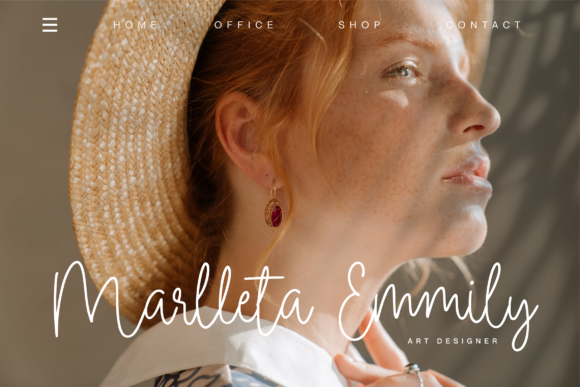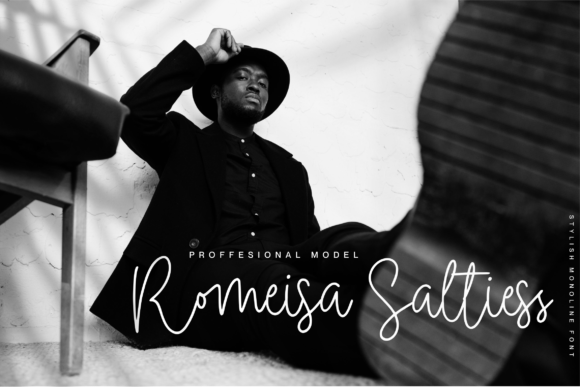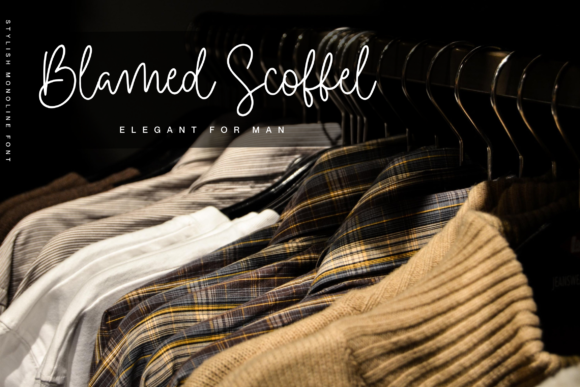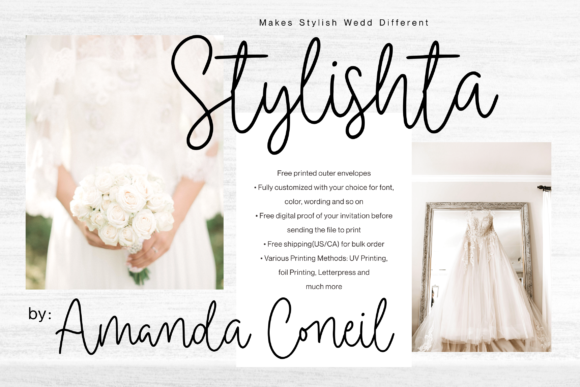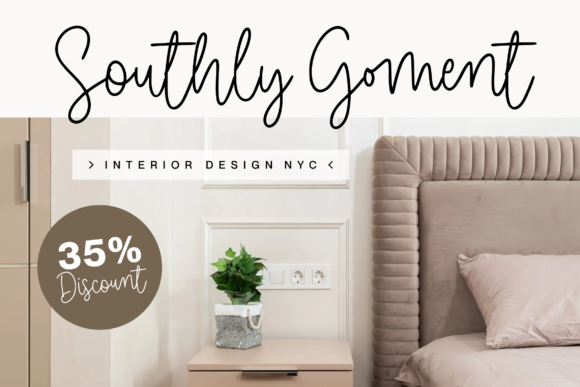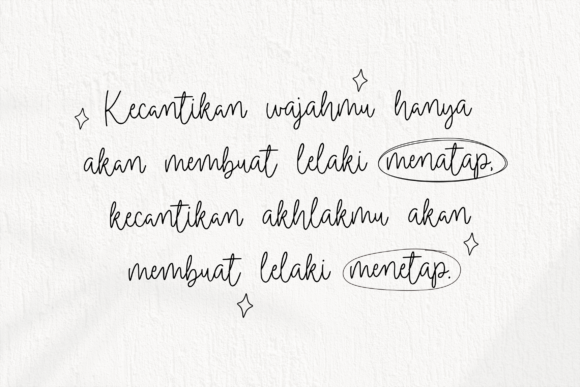
Introducing Clothingline Font: Elevate Your Designs with Authentic Style
Are you a designer or crafter looking for a font that adds a personal touch to your projects? Look no further than Clothingline Font, a stylish script font that exudes authenticity and sophistication. With its elegant and refined aesthetic, Clothingline is perfect for a wide range of applications, from letters and invitations to branding, birthday cards, thank you notes, wedding invitations, and more.
The Authentic Look and Feel of Clothingline Font
Clothingline Font is designed to mimic the look and feel of handwritten script, making it an excellent choice for designers and crafters who want to add a personal touch to their work. The font features beautiful, flowing connections between letters, creating a sense of continuity and harmony. Its authentic look and feel make it perfect for projects that require a touch of elegance and sophistication.
Versatility at Its Best: Use Clothingline Font for Various Projects
One of the best things about Clothingline Font is its versatility. Its stylish and refined aesthetic makes it suitable for a wide range of projects, including:
- Letters and Invitations: Use Clothingline Font to create beautiful, handwritten-style letters and invitations that will make a lasting impression on your recipients.
- Branding: Add a touch of elegance and sophistication to your brand with Clothingline Font. Use it for logos, business cards, and other marketing materials.
- Birthday Cards and Thank You Notes: Create personalized birthday cards and thank you notes that will make your loved ones feel special.
- Wedding Invitations: Make your wedding invitations truly unforgettable with Clothingline Font. Its elegant and refined aesthetic is perfect for formal wedding invitations.
Why Choose Clothingline Font?
So, why should you choose Clothingline Font for your next project? Here are just a few reasons:
- Unique and Authentic Look: Clothingline Font has a unique and authentic look that will set your projects apart from the rest.
- Elegant and Refined Aesthetic: The font features an elegant and refined aesthetic that is perfect for formal and informal projects alike.
- Easy to Read: Despite its script style, Clothingline Font is easy to read, making it perfect for body text and other applications where readability is important.
- Highly Versatile: Clothingline Font is highly versatile and can be used for a wide range of projects, from letters and invitations to branding and more.
Tips for Using Clothingline Font Effectively
To get the most out of Clothingline Font, here are a few tips to keep in mind:
- Use it Sparingly: While Clothingline Font is beautiful, it can be overwhelming if used too much. Use it sparingly to add a touch of elegance and sophistication to your projects.
- Pair it with Other Fonts: Clothingline Font pairs well with other fonts, especially sans-serif fonts. Experiment with different pairings to find the one that works best for your project.
- Adjust the Size and Color: Adjust the size and color of Clothingline Font to suit your project’s needs. A larger size can make a bold statement, while a smaller size can add a touch of subtlety.
Clothingline Font is a stylish script font that is perfect for designers and crafters who want to add a personal touch to their projects. With its authentic look and feel, elegant and refined aesthetic, and high versatility, Clothingline Font is an excellent choice for a wide range of applications. Whether you’re creating letters and invitations, branding materials, or other projects, Clothingline Font is sure to impress.